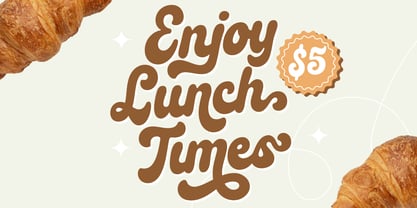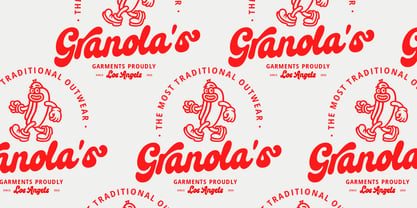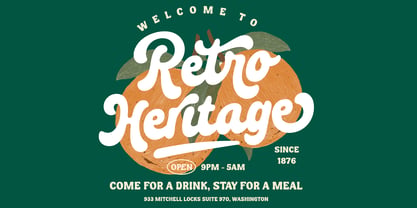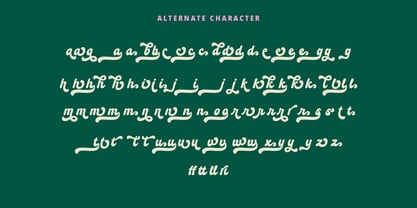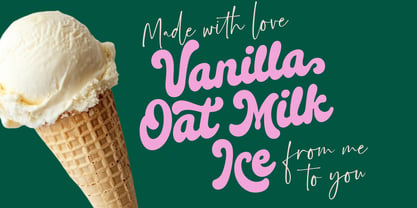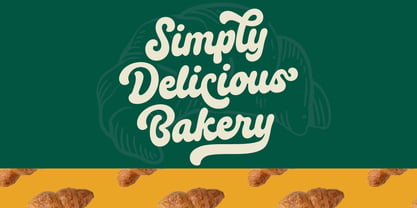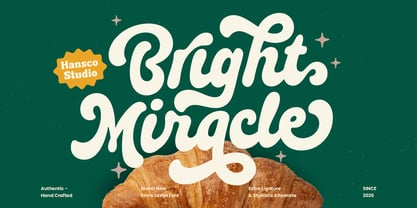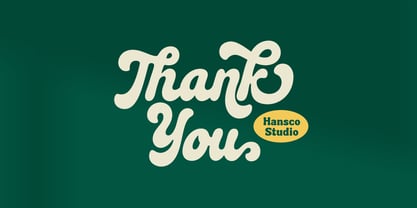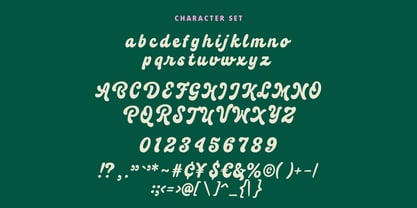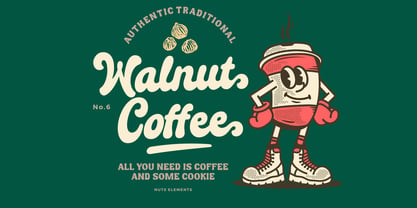
Bright Miracle
The Bright Miracle Font Family was designed by Burhan Afif and published by HansCo. Bright Miracle contains 1 styles. More about this family
Bring effortless charm to your designs with this retro modern script font that blends nostalgic vibes with a fresh, contemporary twist. Designed with smooth curves, natural flow, and a casual handwritten feel, this font is perfect for logos, branding, packaging, social media graphics, merchandise, and other creative projects. Its stylish yet approachable character makes every word look authentic, warm, and eye-catching. Features : Uppercase & Lowercase Numbers & Punctuation Multilingual Alternate Character We highly recommend using a program that supports OpenType features and Glyphs panels like many of Adobe apps and Corel Draw, so you can see and access all Glyph variations. Enjoy!